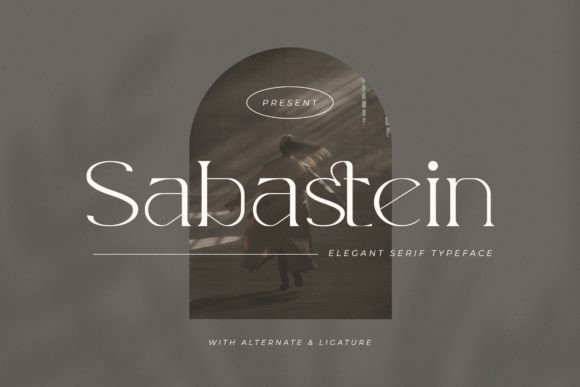
Sabastein: The Timeless Serif Font for Web Apps
In the realm of web design, fonts hold the power to transform the mundane into the magnificent. They have the ability to capture attention, convey emotions, and leave a lasting impression on users. And when it comes to serif fonts that exude elegance and sophistication, Sabastein reigns supreme.
Crafted by the renowned TypeFactory, Sabastein is a masterpiece that harmoniously blends traditional influences with a contemporary aesthetic. With its graceful curves, delicate serifs, and superb readability, Sabastein elevates the visual appeal of any web application.
But Sabastein is more than just a pretty face. It's a font engineered for versatility, adaptability, and ease of use. Whether you're designing a sleek landing page, a dynamic dashboard, or an engaging e-commerce platform, Sabastein seamlessly adapts to your vision.
Its extensive character set, including a treasure trove of glyphs and ligatures, empowers you to create captivating text layouts that dance across the screen. Whether you're crafting headlines that demand attention, body copy that flows effortlessly, or navigation menus that guide users with clarity, Sabastein rises to the occasion.
With Sabastein as your typographic ally, you'll not only captivate users with your web app's visual appeal but also ensure that your content is effortlessly readable, enhancing the overall user experience. Its PUA encoding ensures seamless access to the font's full splendor, making it a breeze to incorporate Sabastein into your design arsenal.
So, embark on a typographic journey with Sabastein, the font that transforms the ordinary into the extraordinary. Experience the power of a font that not only beautifies but also optimizes the user experience. Let Sabastein be your guide as you craft web applications that leave an enduring mark on users' minds.